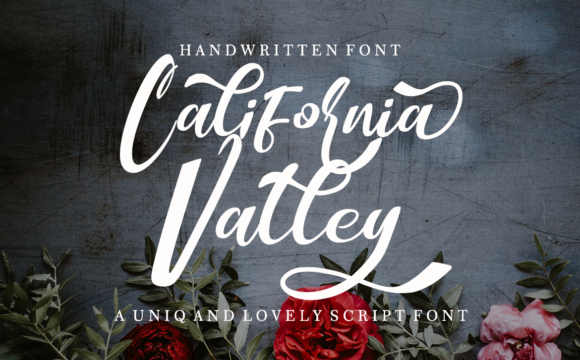
California Valley Font for Handmade Products and Craft Sellers
If you have ever searched for a handwritten font that balances bounce with elegance, you know how rare that combination can be. Many script fonts lean too formal or too casual, leaving your product labels or wedding invitations feeling either stiff or sloppy. California Valley solves that problem with a bouncy handwritten style that feels both playful and polished. As a maker who creates physical goods, digital printables, and custom designs for clients, I have tested plenty of fonts over the years. This one stands out because it works beautifully across so many projects without losing readability or charm.
The Personality of California Valley
California Valley is a bouncy handwritten font that captures a light, airy, and slightly whimsical feel. Each letter carries a natural rhythm, as if written by hand with a steady pen and a cheerful mood. The swashes and ligatures are not just decorative extras, they are thoughtfully designed to flow together, giving your words a connected, graceful look. This is not a font that shouts for attention; it invites the eye to linger. For a small shop owner, that kind of visual warmth can make a customer pause longer on your product listing or packaging. The font feels approachable, which is exactly what you want for handmade goods that tell a story.
Because California Valley belongs to the Script Amp category of Fonts, it carries that expressive DNA that makes script typefaces so popular for branding and display use. Yet it avoids the common pitfalls of overly elaborate scripts that become unreadable at small sizes. The bouncy baseline adds movement without sacrificing clarity, a detail that matters when you are printing tiny text on a candle label or cutting vinyl for a mug.
Practical Uses for Handmade Labels, Stickers, and Packaging
When I create product labels for my own line of bath salts and soy candles, I need a font that looks premium but also prints cleanly. California Valley shines here. The open letterforms and generous swashes work well on small round labels, where space is tight but you still want a decorative touch. For example, a lavender candle label reading Calm Night in California Valley feels soft and inviting, especially when paired with a simple line illustration. The ligatures connect naturally, so the phrase does not look fragmented.
Sticker makers will appreciate how the font holds up in die-cut designs. Because the letters have a consistent stroke weight and clear shapes, you can cut small words like Love or Joy without losing detail. I have used it for seasonal sticker sets, and customers consistently comment on the elegant handwriting feel. For packaging tags on boutique apparel or gift boxes, California Valley adds a handmade touch that aligns with the growing demand for authentic, artisan aesthetics.
Invitations, Wedding Stationery, and Greeting Cards
Wedding stationery is one area where font choice can make or break the entire suite. Couples want something romantic yet readable. California Valley delivers that balance. The bouncy script works beautifully for the couple’s names on a save-the-date card, while the swashes can be used to accentuate key words like Join Us or Celebrate on the inside. For a rustic barn wedding, this font pairs naturally with wildflower motifs and kraft paper. For a more modern celebration, it holds its own against clean geometric borders and minimalist layouts.
Greeting card designers will find a lot of versatility here. Because the font includes multiple ligatures and alternate characters, you can create variety across a series of cards without repeating the exact same letterforms. That is a huge advantage when you are building a cohesive product line. Birthday cards, thank you notes, and sympathy cards all benefit from the gentle, human feel that California Valley provides.
Printable Wall Art and Home Decor
Printable wall art is a popular category on creative marketplaces, and California Valley is a strong contender for these designs. A quote like Gather Here with Grateful Hearts prints beautifully at larger sizes, where the swashes can stretch and breathe. The bouncy baseline adds visual interest without distracting from the message. For farmhouse style decor, this font complements distressed wood textures, neutral palettes, and botanical accents.
I have also used California Valley for SVG-style designs intended for cutting machines. When you convert the font to paths for Cricut or Silhouette projects, the curves remain smooth, and the connections between letters do not create unwanted gaps. This is critical for makers who sell cut files or physical signs. A welcome sign for a front porch, for instance, cut from birch plywood and painted in matte black, retains the handwritten charm that customers love.
Readability Advice for Small Products and Cutting Machines
Readability is the first thing I check when testing a new script font for craft use. California Valley performs well at moderate sizes, but it is worth noting that very small text, such as ingredients on a label or fine print on a tag, may require a simpler companion font. For main phrases, names, and short titles, the font is highly legible. The swashes are best reserved for larger applications where they have room to shine. On a small sticker, you may want to turn off certain ligatures or use a simplified version of the font if your software allows for stylistic sets.